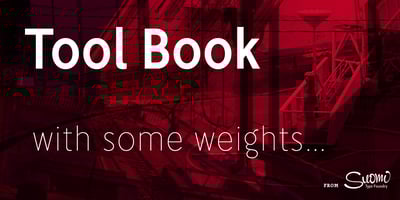
Tool Font Family was designed by Tomi Haaparanta and published by Suomi. Tool contains 15 styles and family package options. A classic, narrow and clean sans serif family with seven weights, Roman and Italic, all with Old Style Numerals and Small Caps, for both headlines and body text use.